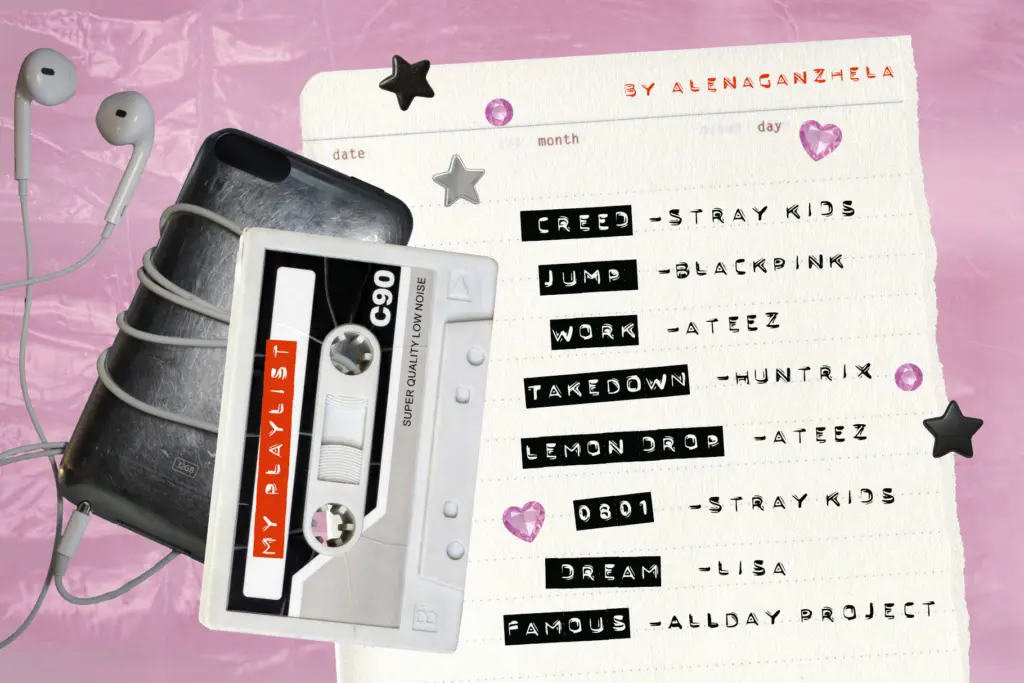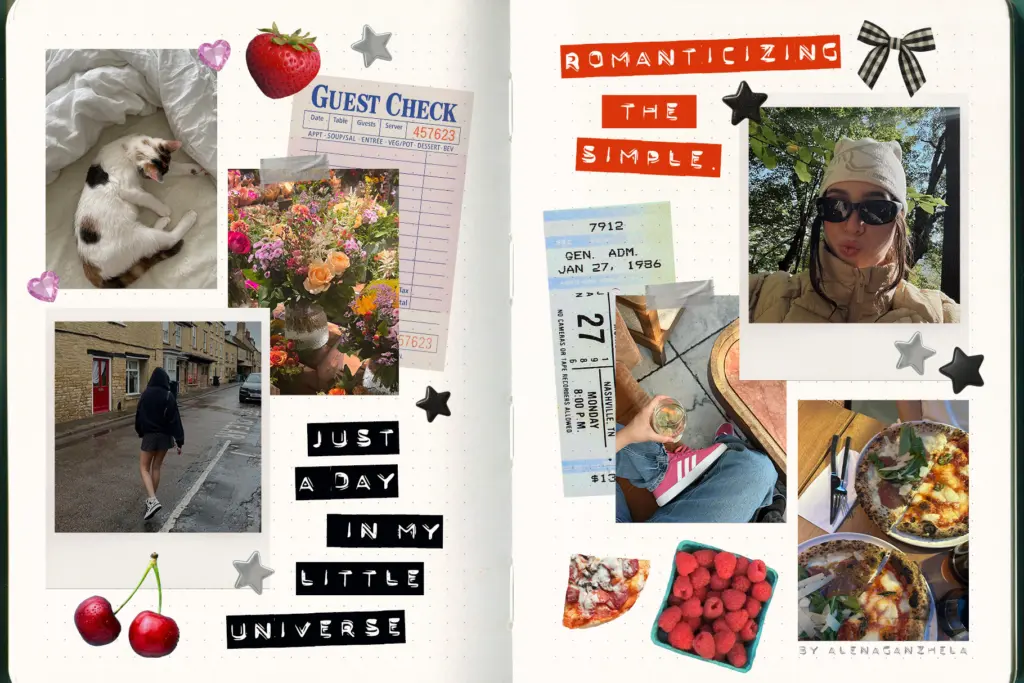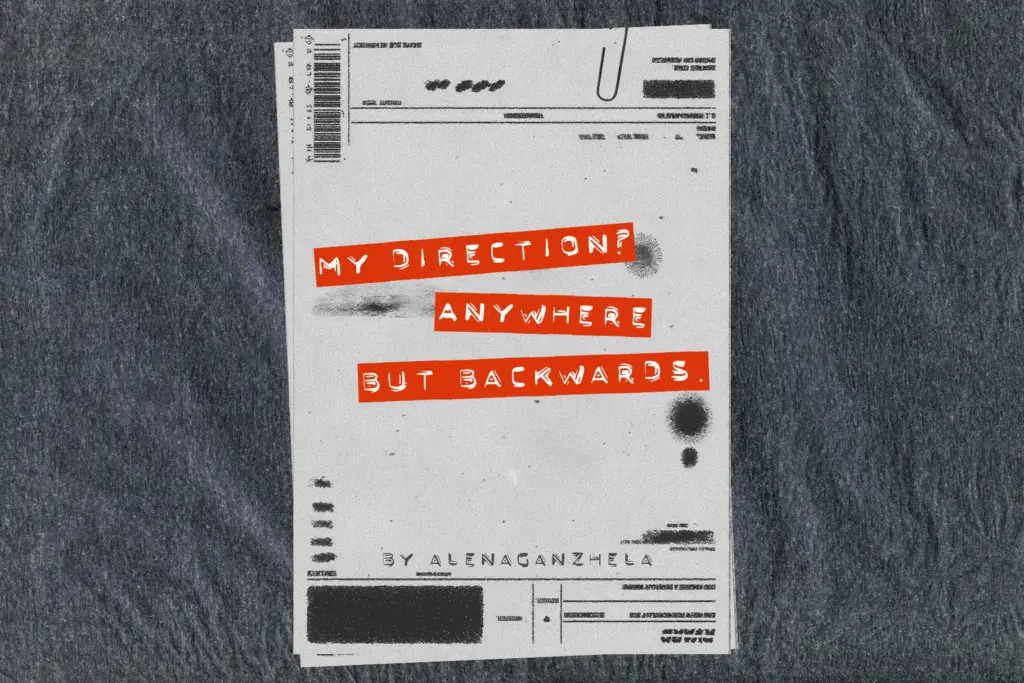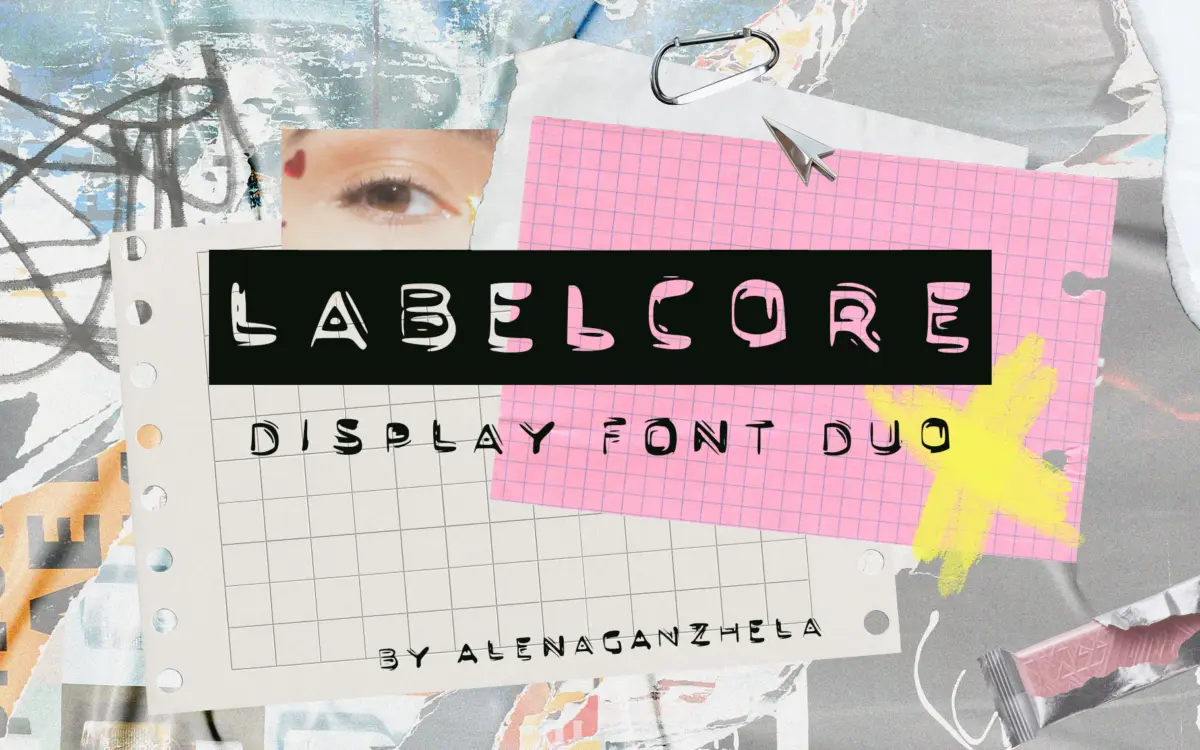
LABELCORE takes its cue from the plastic embossed label makers that lived in every junk drawer in the nineties, filtered through the current wave of scrapbook-and-collage digital design. The letters are all caps, built on a tight geometric skeleton with squared-off proportions and almost no optical correction — the kind of directness that reads as handmade even though the shapes are clean. There’s a slight roughness at the joins in places, enough to suggest a stamped or cut-out origin without tipping into a full grunge treatment.
The duo gives you Regular and Bold, and the difference between them isn’t subtle. The Bold weight thickens the strokes enough to close up counters slightly, which is exactly what you want when you’re layering the two styles for emphasis rather than treating them as a hierarchy system in the traditional sense. This is a font that wants to be shouted, not whispered — there’s no light or thin option here, and that’s clearly intentional rather than a gap.
Because it’s uppercase-only, LABELCORE isn’t trying to be a text-setting workhorse. What you get is a compact, punchy alphabet designed to be typed in short bursts — words, not sentences. The letterforms hold their geometry consistently across the set, so words don’t wobble in weight or width the way some hand-inspired display fonts do. That consistency is the font’s real asset: it looks the same energetic way whether you’re setting a two-letter monogram or a six-word tag line.
The trade-off of an all-caps-only design is obvious — there’s no lowercase to fall back on for anything resembling body copy or even a longer caption, so you’re locked into short, loud statements by design. If your project needs a companion voice for smaller text, you’ll need to source something else entirely, since LABELCORE doesn’t attempt to cover that ground itself.
This is a sticker-and-sticky-note font, a mixtape-cover font, a font for digital planner headers and TikTok captions where the whole point is to look slapped-on and a little defiant. Scrapbookers and collage artists will find it slots naturally next to torn paper textures and tape graphics — the seller’s own preview material leans on exactly that aesthetic, and it fits without looking forced.
Where it starts to strain is anywhere that calls for restraint or refinement. Try it on a wedding suite or a law firm’s letterhead and it’ll fight the brief at every turn — that’s not a flaw, just a boundary worth knowing before you commit. It also won’t do much for you in longer editorial layouts, since the all-caps limitation caps its usefulness at headline length. Within that lane — playful branding, social graphics, journaling spreads, packaging labels with attitude — it does the job cleanly and without pretension, which is really all a font like this needs to do.
- Regular and Bold weights layer cleanly for emphasis without clashing
- Consistent geometric letterforms hold together at sticker and headline sizes
- Fits naturally into retro label and collage aesthetics without extra styling
- All-caps only, so there's no option for longer text or softer statements
- Limited to two weights, which restricts more complex hierarchy work
LABELCORE does one thing — loud, stamped-looking uppercase headlines — and does it consistently well. It won't stretch to body text or formal work, but for collage, planners, and social graphics it delivers exactly the attitude it promises.